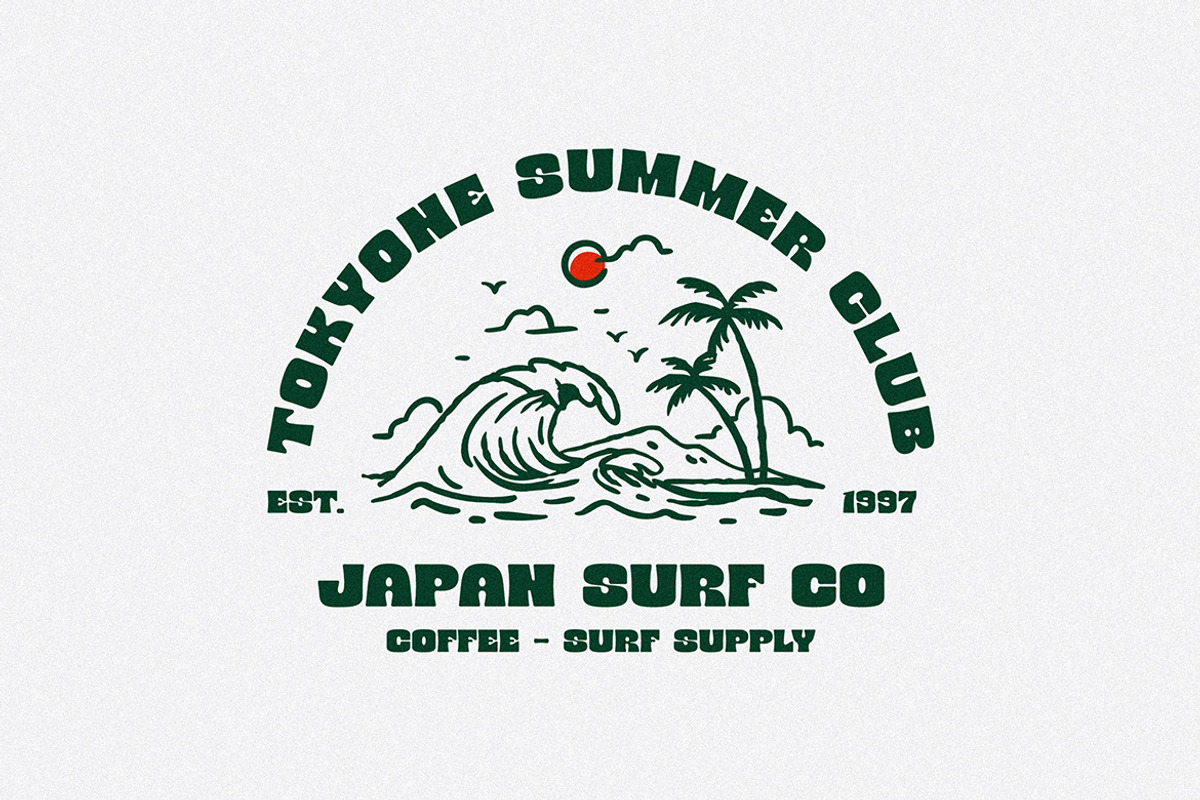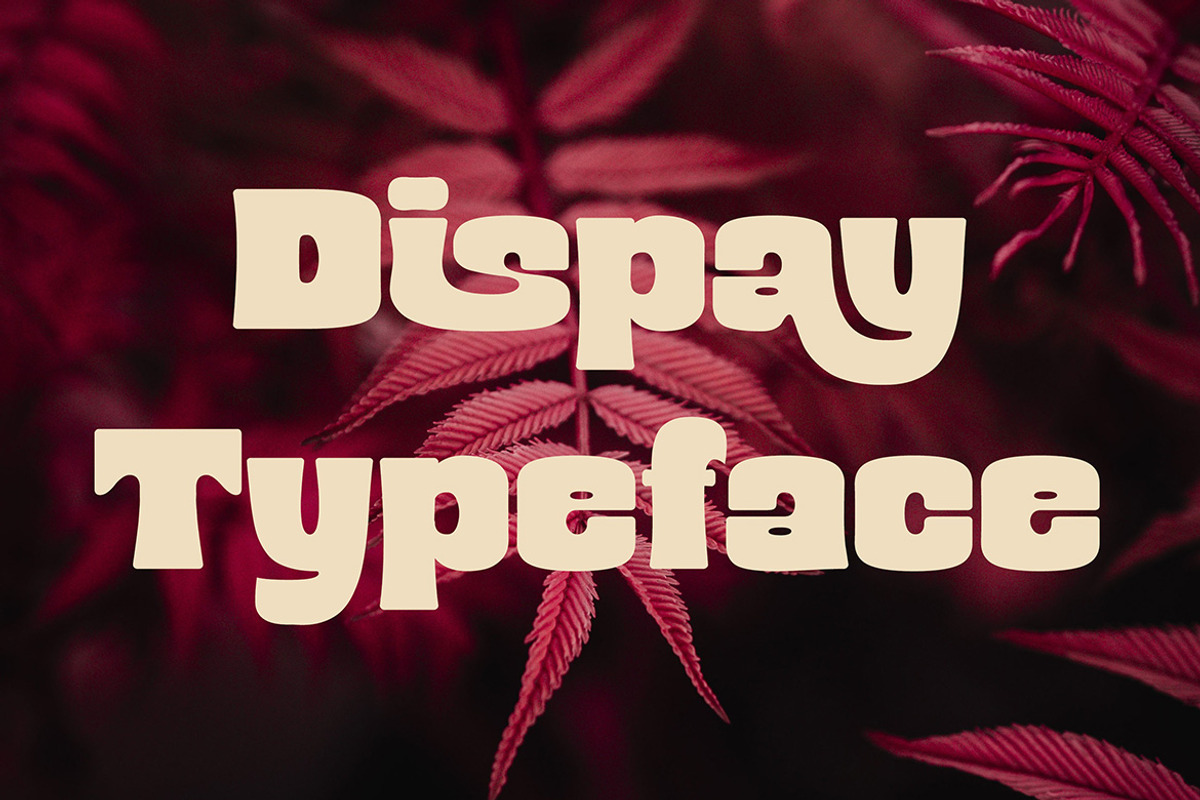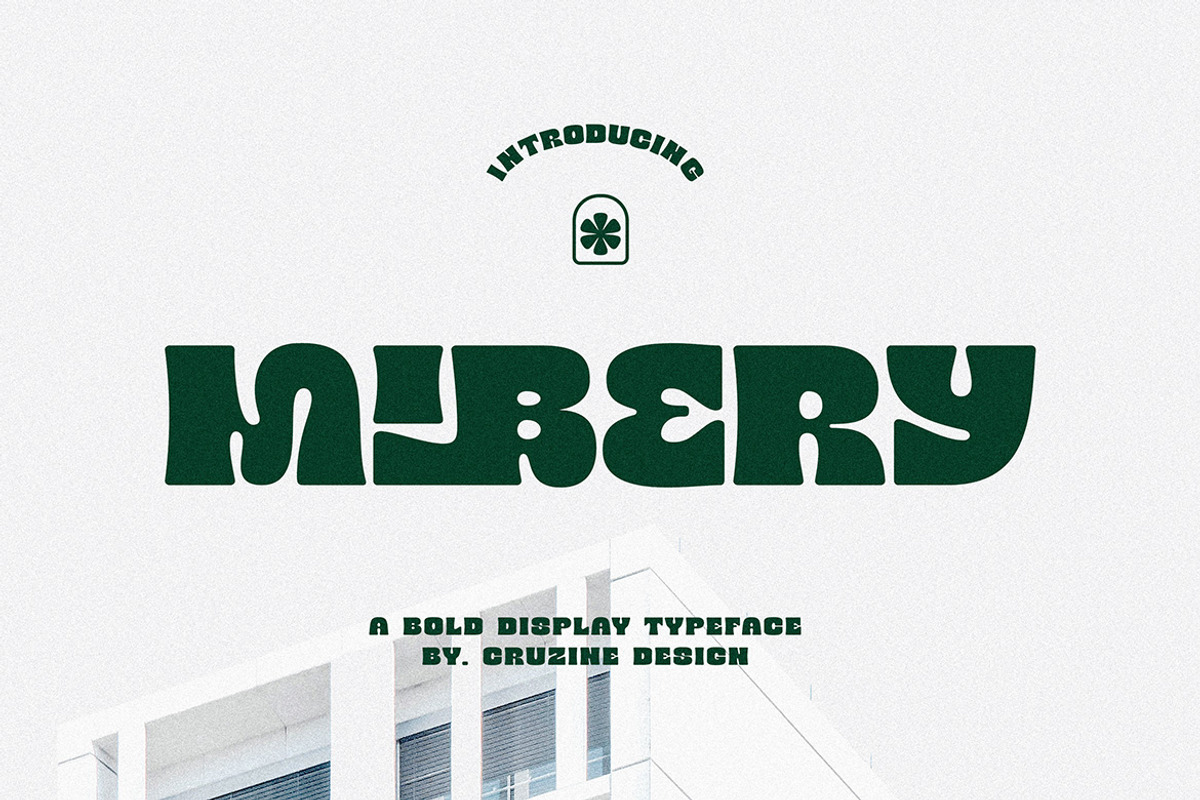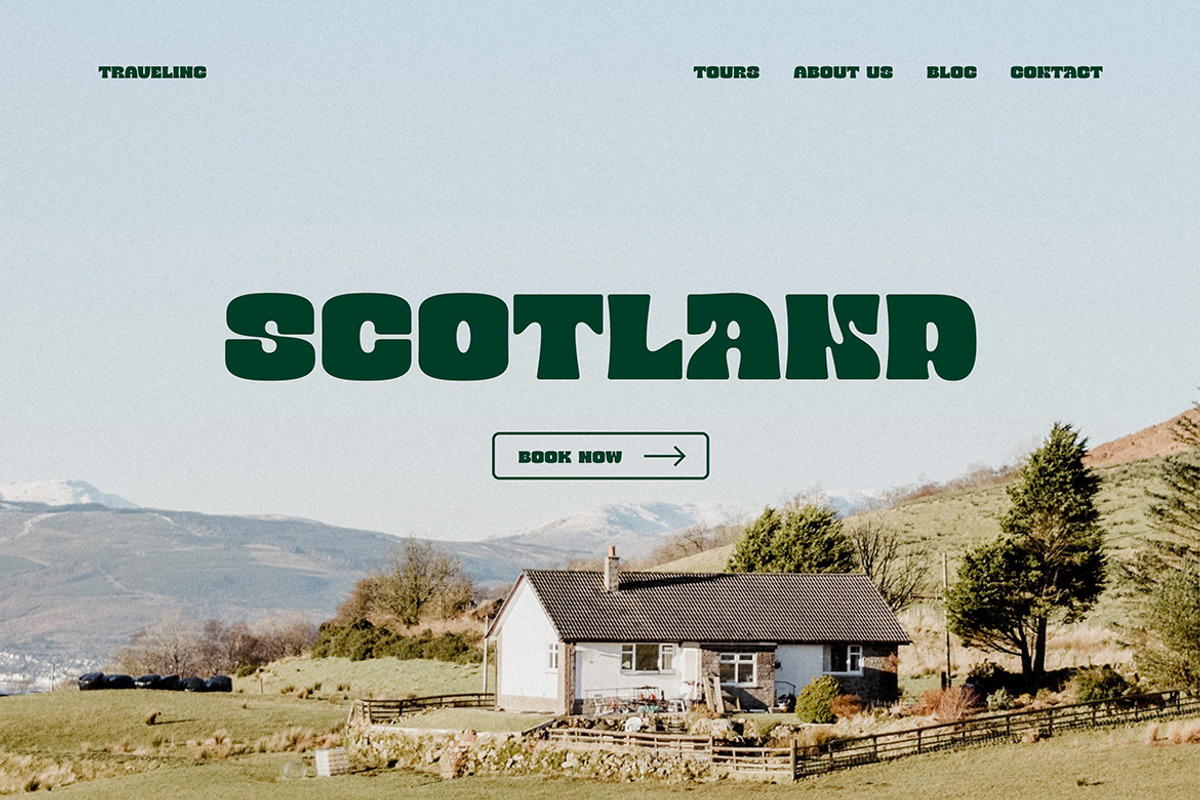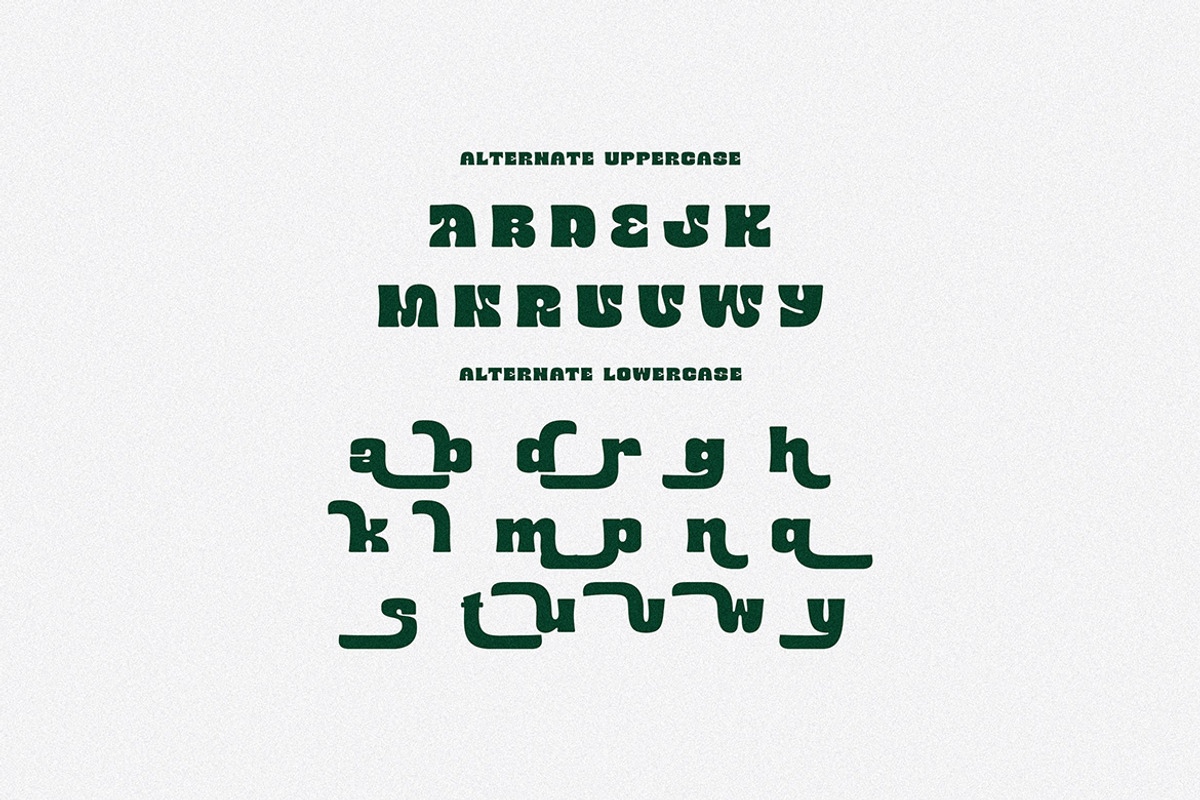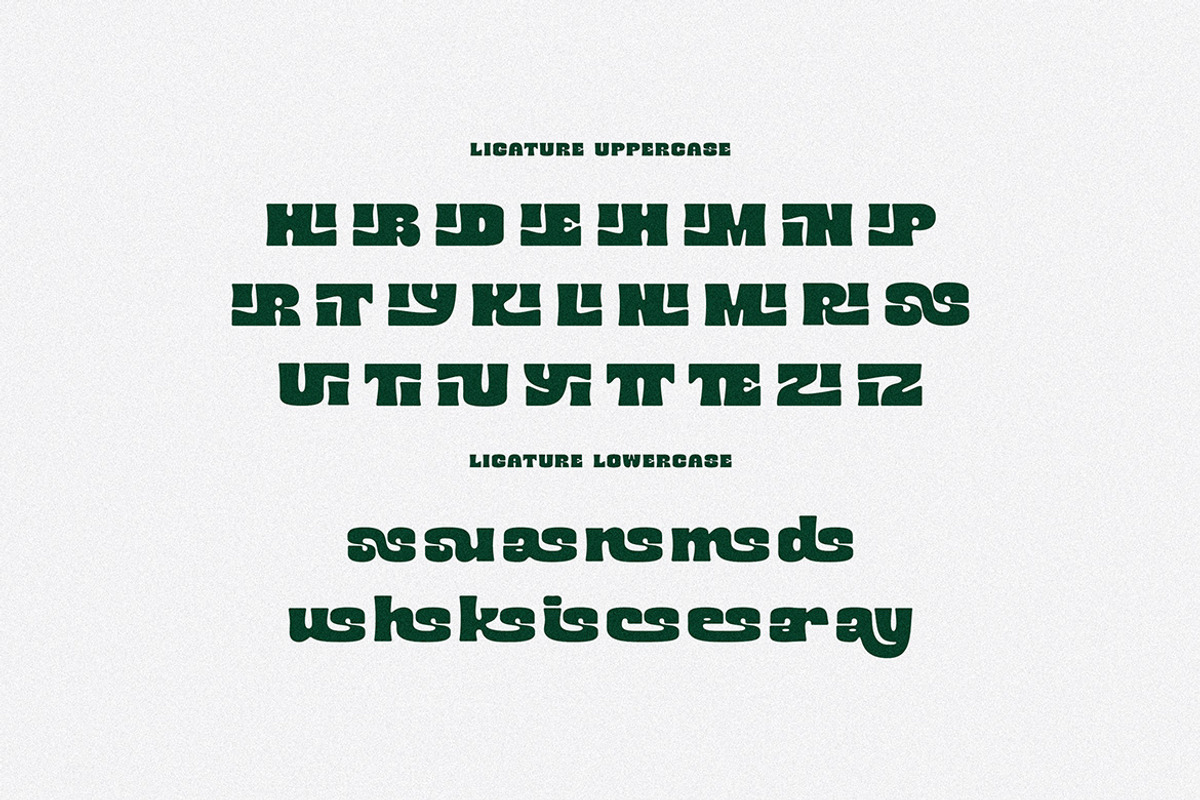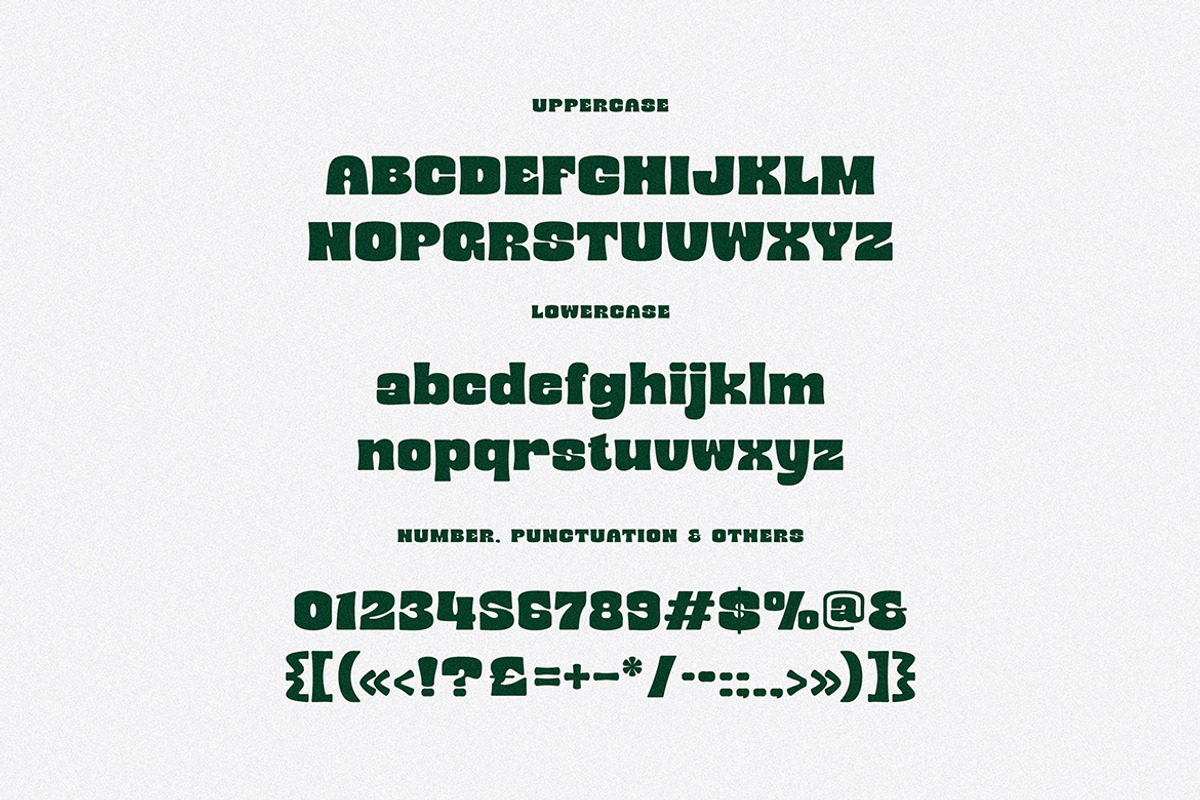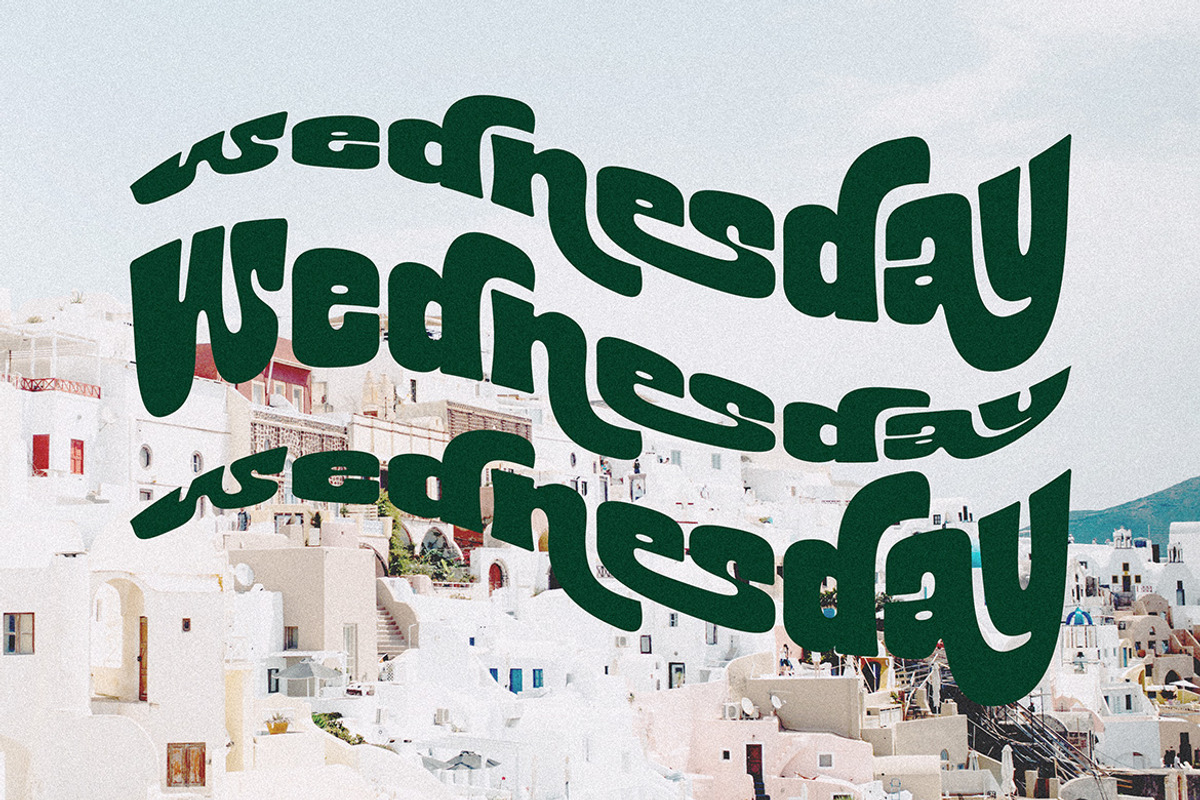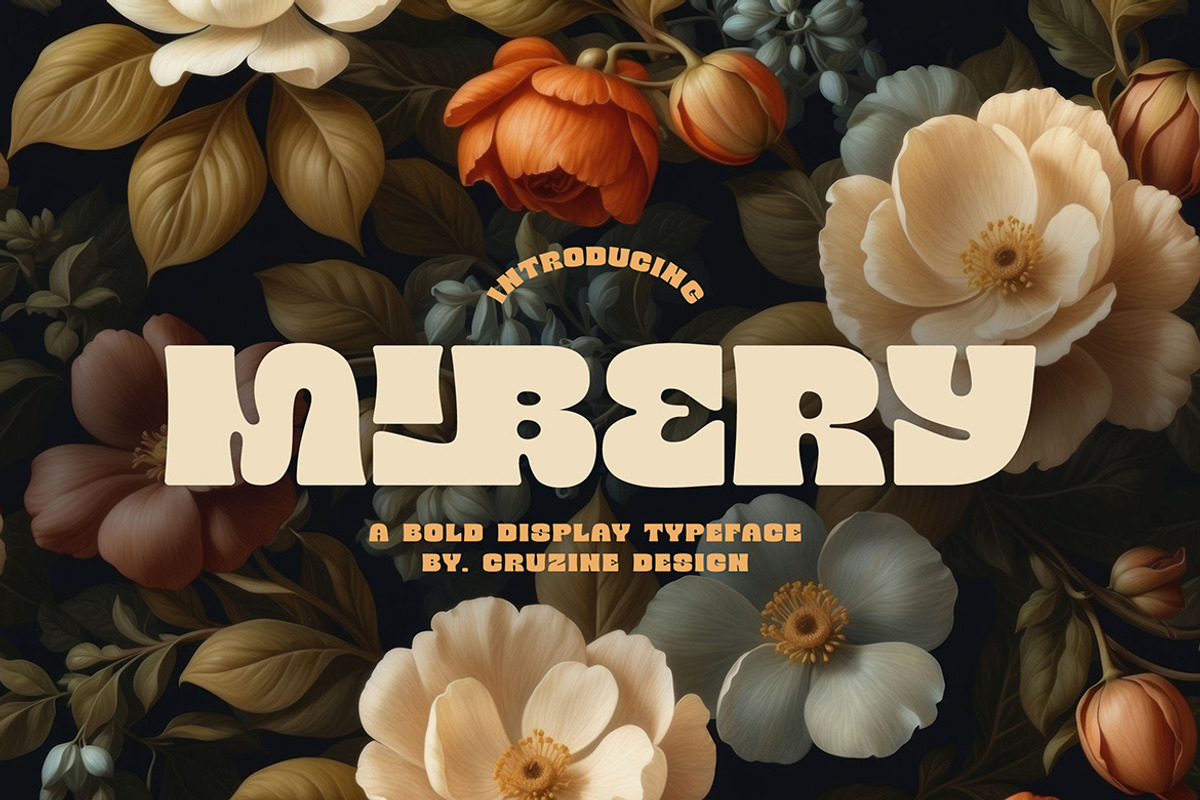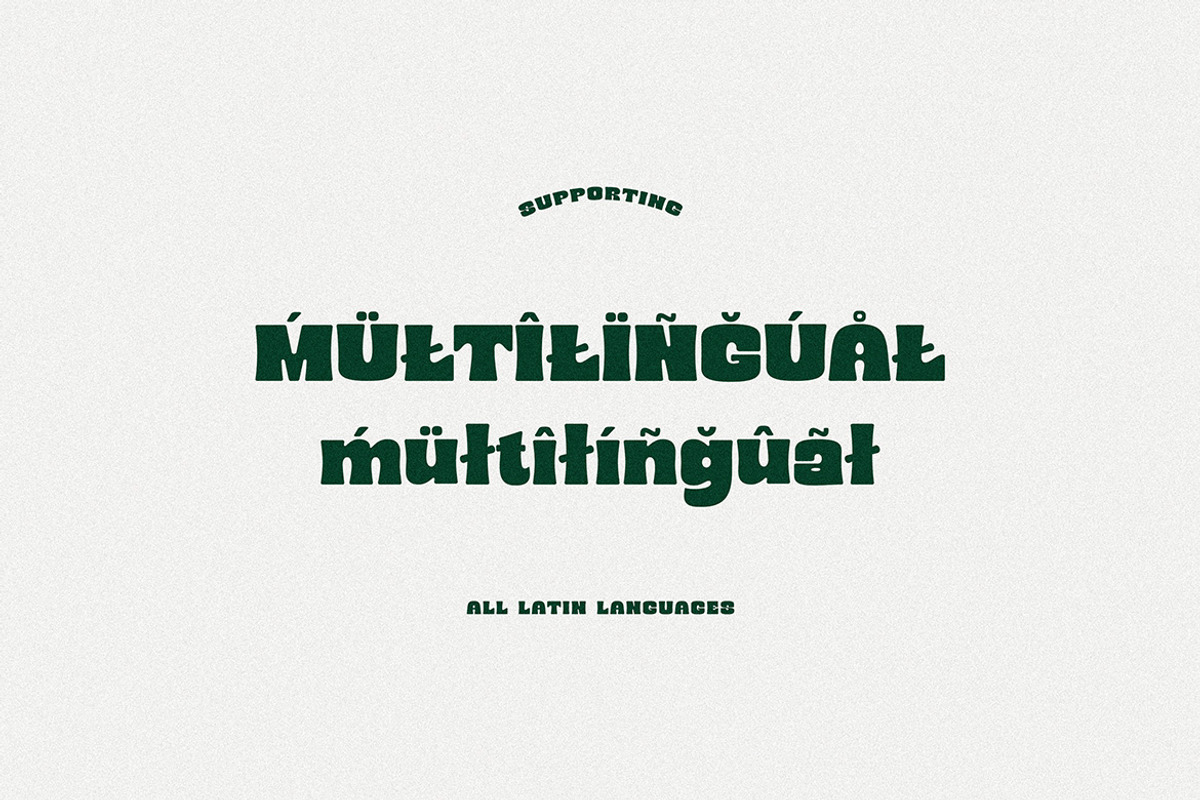
Mibery Retro Bold Serif
Trendy, elegant, luxury, rounded, retro & bold style semi-serif font for your new fancy projects. Stylish, creative and classic style on Mibery font will be great for any modern or classy branding project. Lot of alternates and ligatures will help you to create unique and original logo design or website header! Enjoy :)
- Alternate characters
- Lot of ligatures
- Great for modern branding projects!